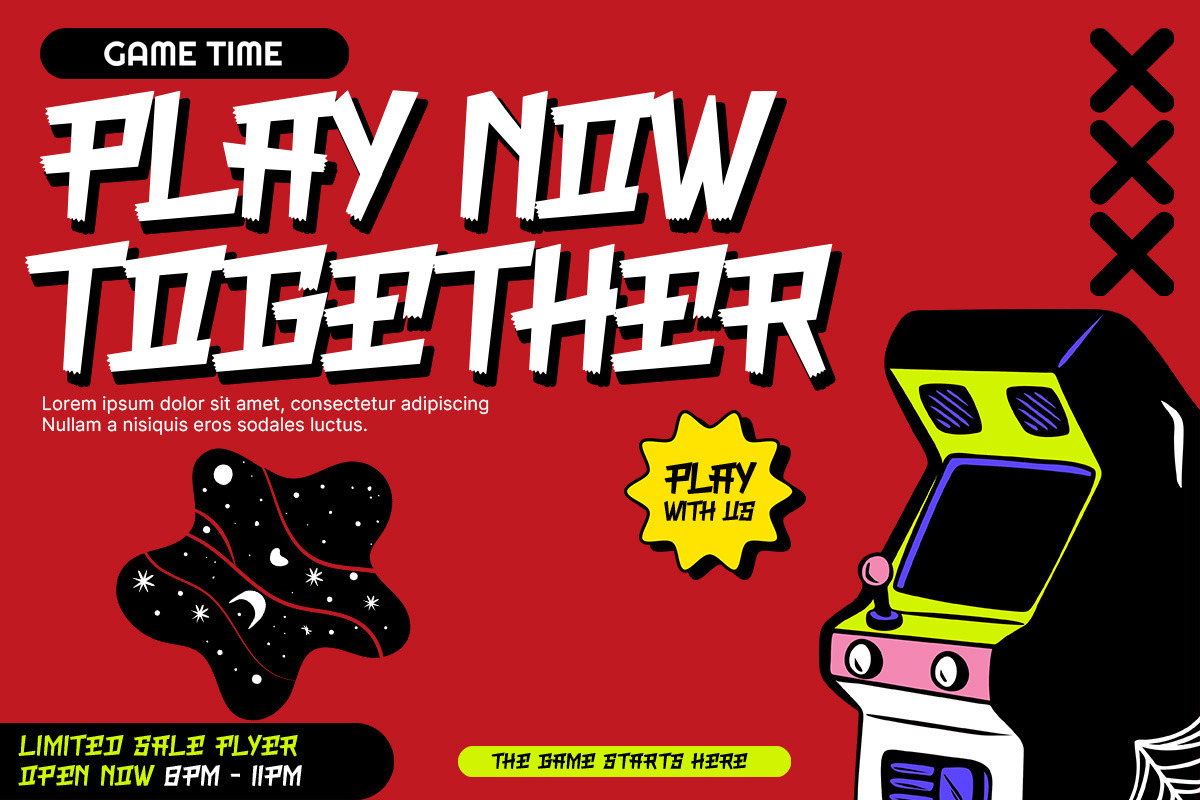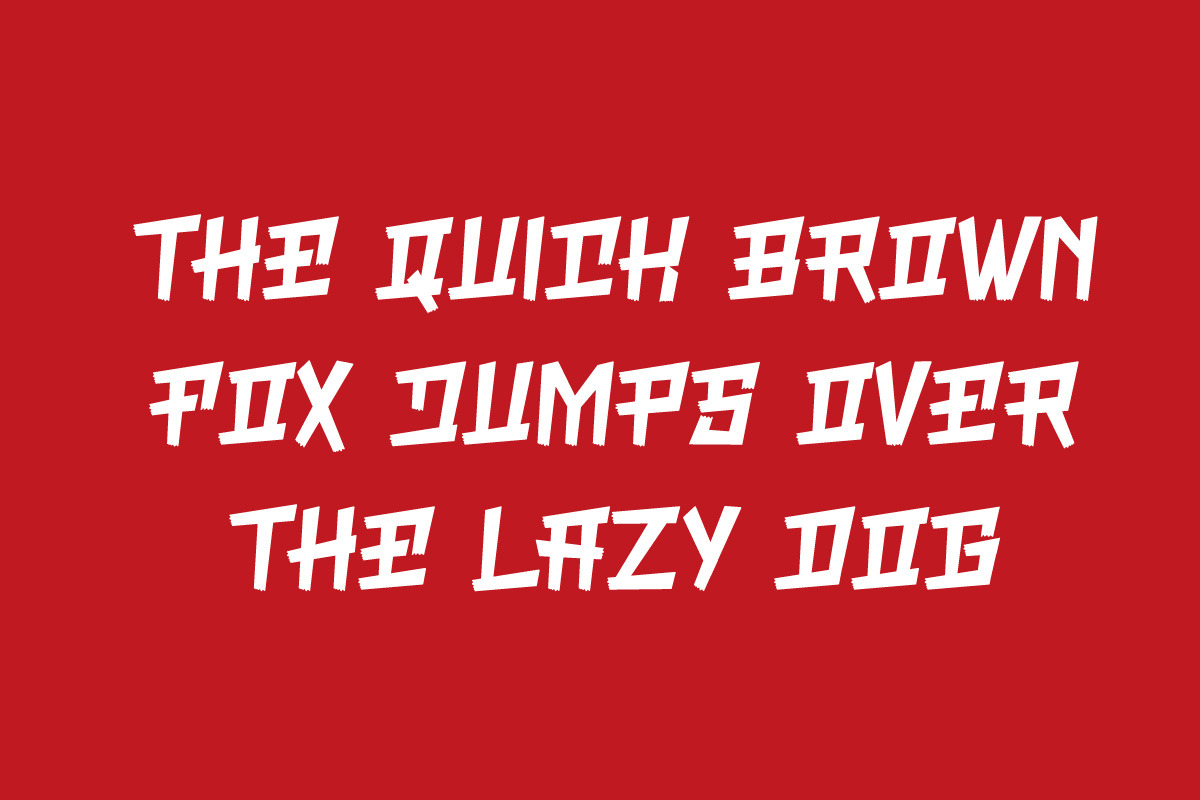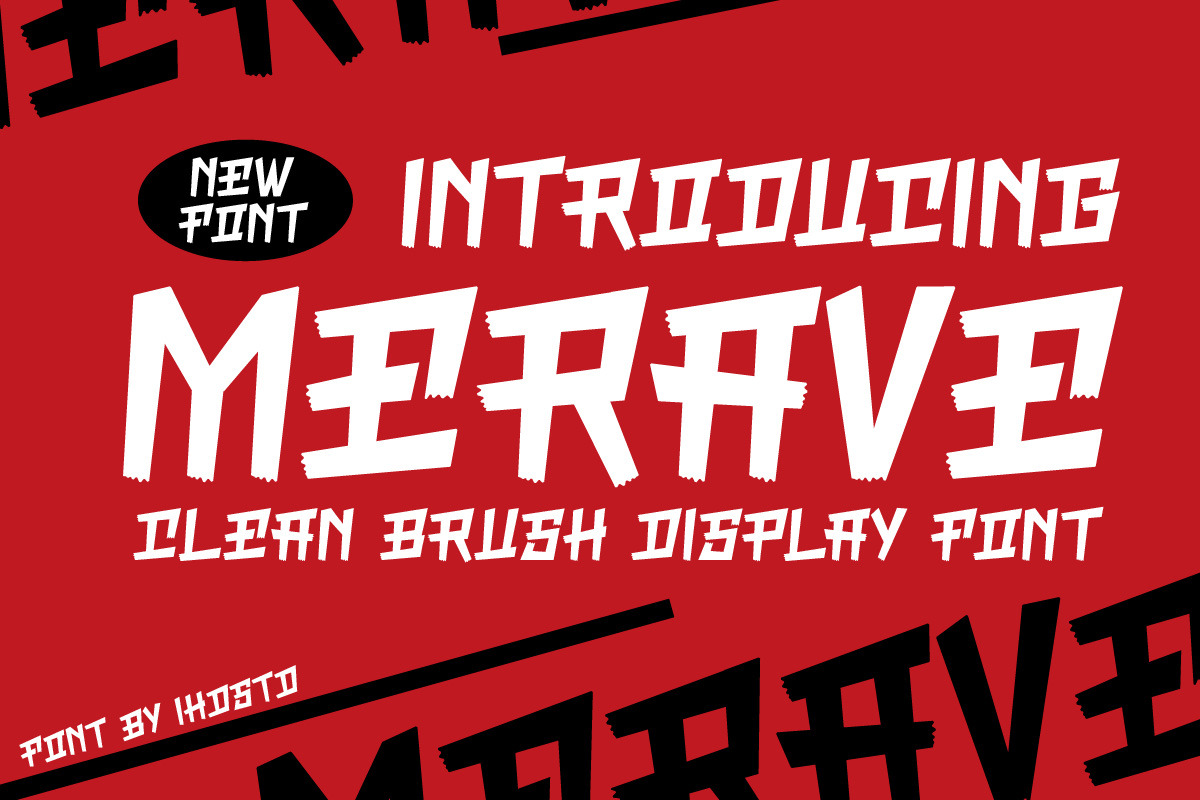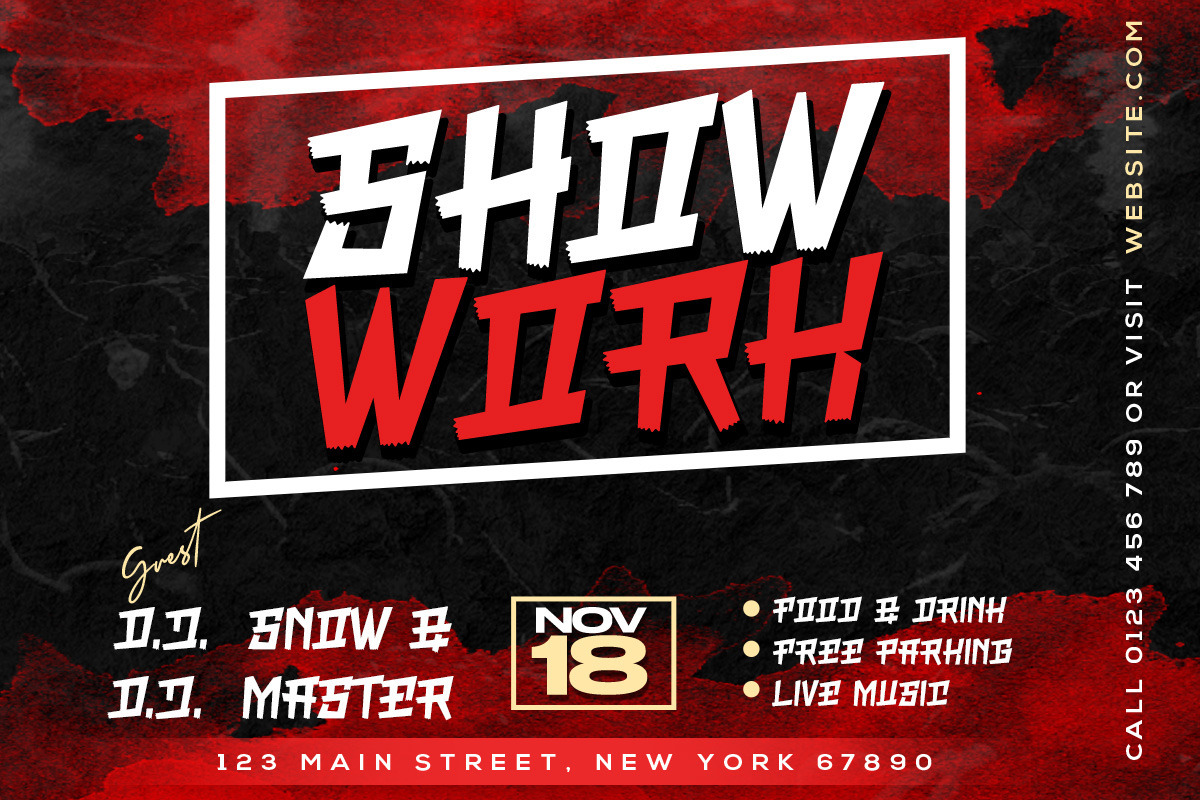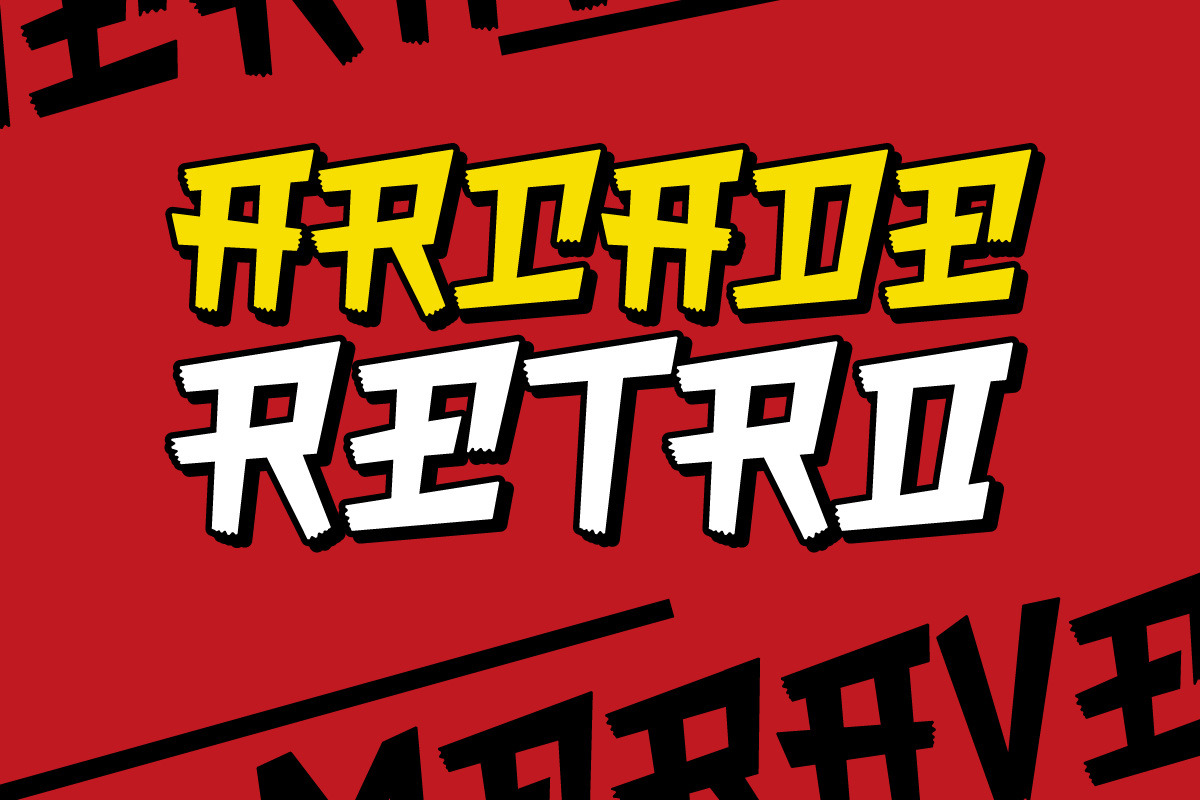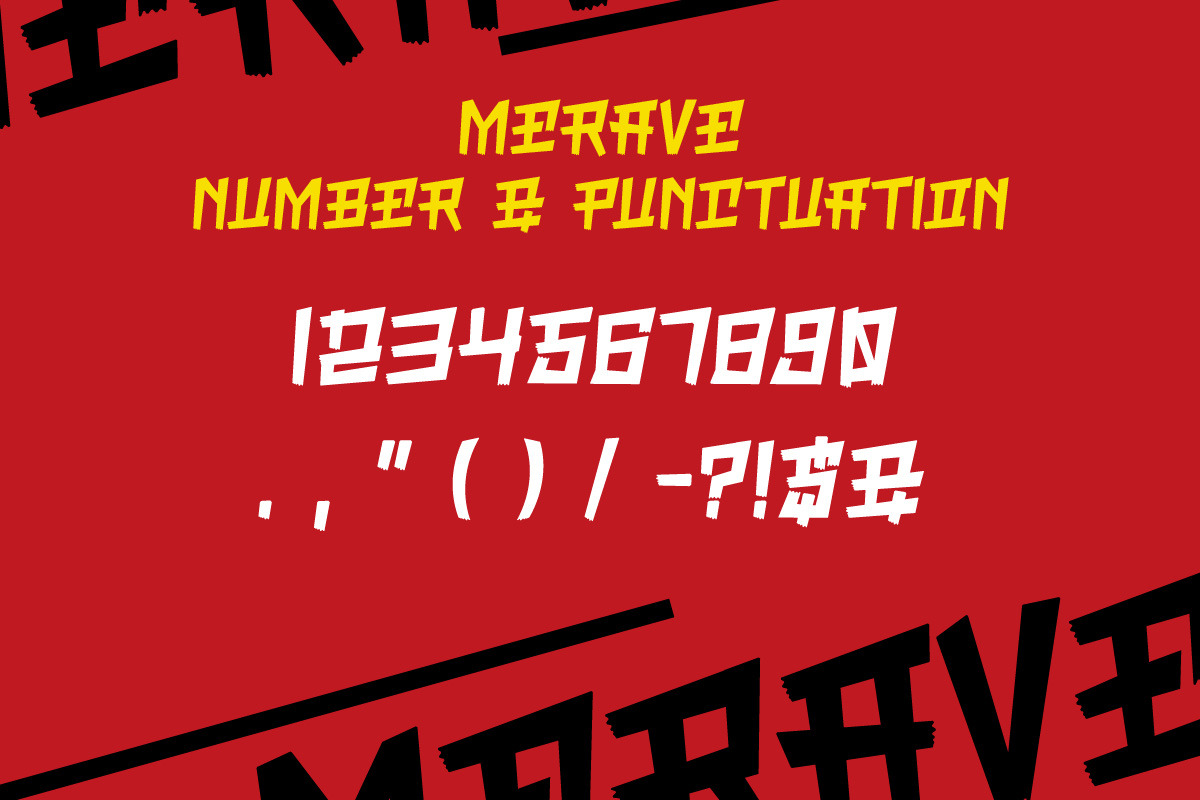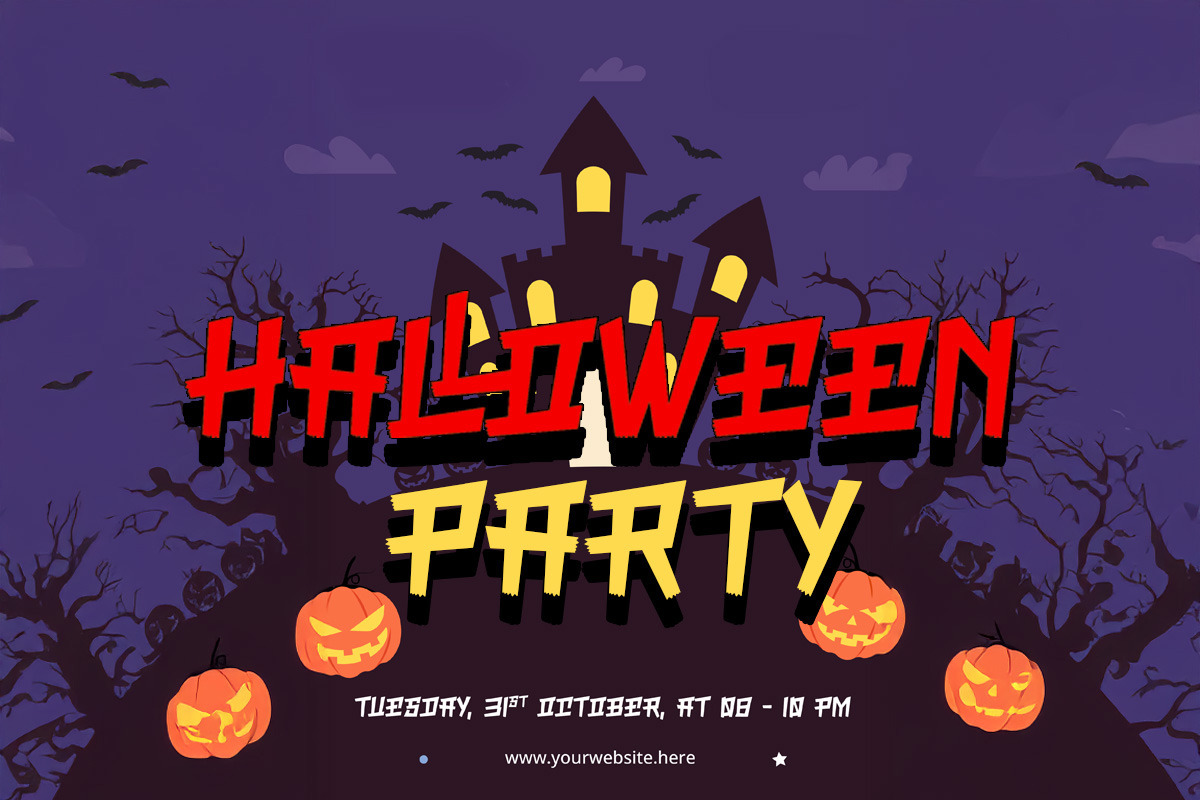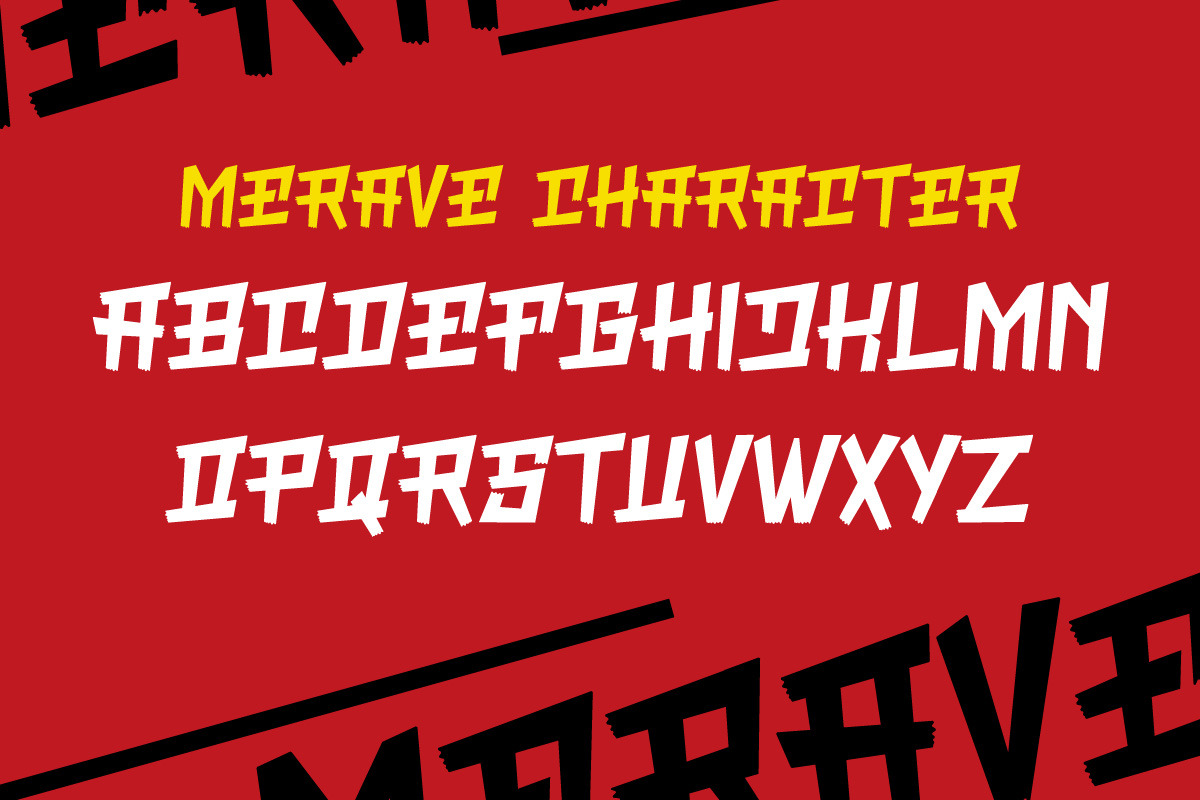
Merave Brush Display Font
Merave – Clean Brush Display Font
Merave is a dynamic, clean brush display font that delivers energy, motion, and character in every stroke.
With its rough-edged brush design and bold style, Merave is great for music posters, streetwear brands, action movie titles, and edgy social media graphics.
It captures the spirit of rebellion and movement, giving your work a raw, expressive vibe. Perfect for modern creatives seeking a loud, impactful font that still feels hand-crafted and full of attitude.